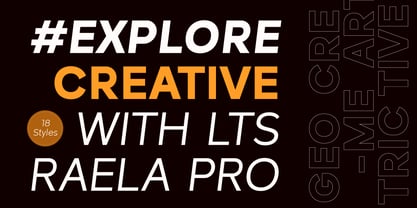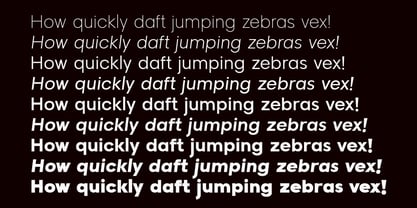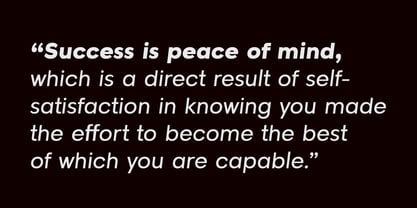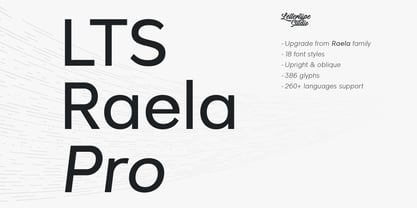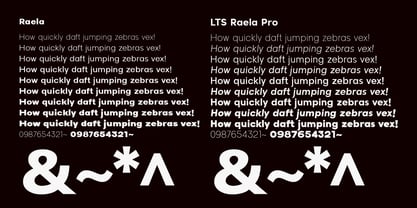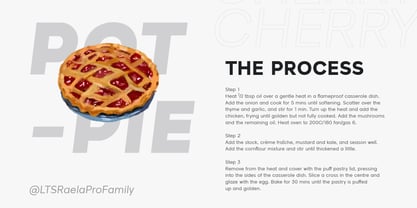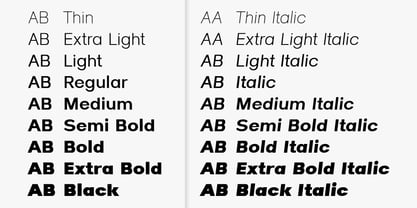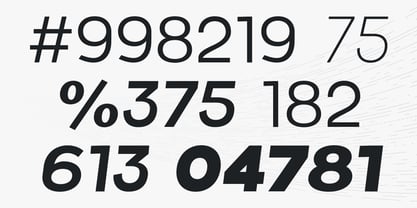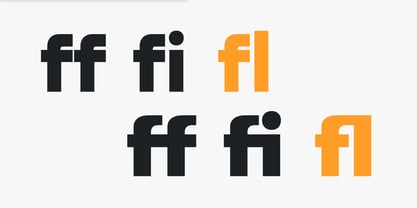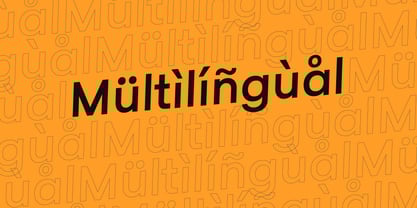
LTS Raela Pro
by Lettertype Studio
The LTS Raela Pro Font Family was designed by Diki Pradipta Tri Atmojo and published by Lettertype Studio. LTS Raela Pro contains 18 styles and family package options. More about this family
Raela Pro is a meticulously crafted geometric sans serif typeface that delivers regularity and simplicity while exuding a bold and strong personality. Designed for readability and versatility, its proportional width, flat apex, closed aperture, and straight-cut stroke ends enhance its contemporary appeal.
Raela includes 18 weights, ranging from Thin to Heavy. OpenType features include Stylistic Alternates, figure variations (fractions, tabular lining, numerator, denominator), and broad Latin language support.
Designers: Diki Pradipta Tri Atmojo
Foundry: Lettertype Studio